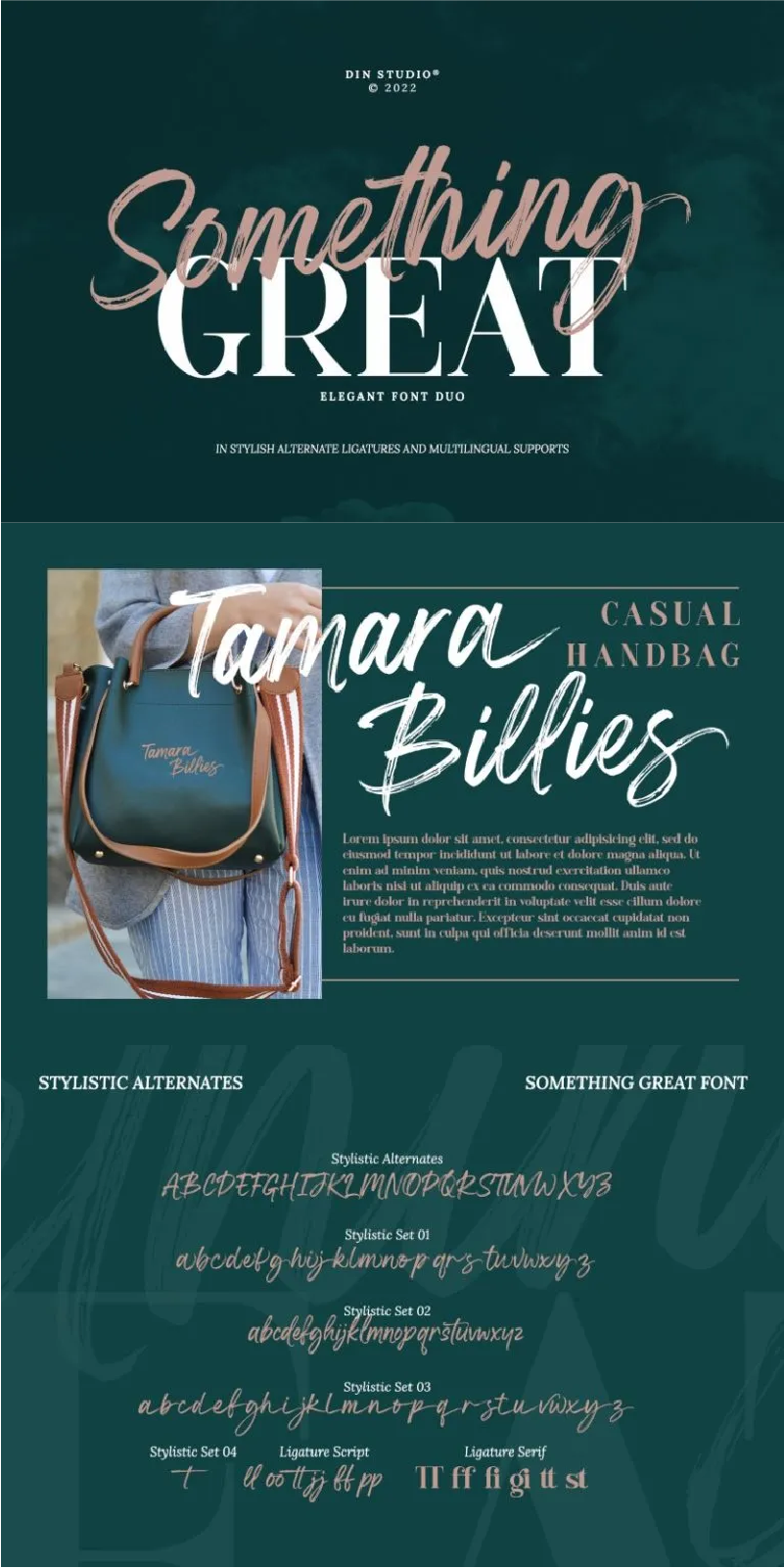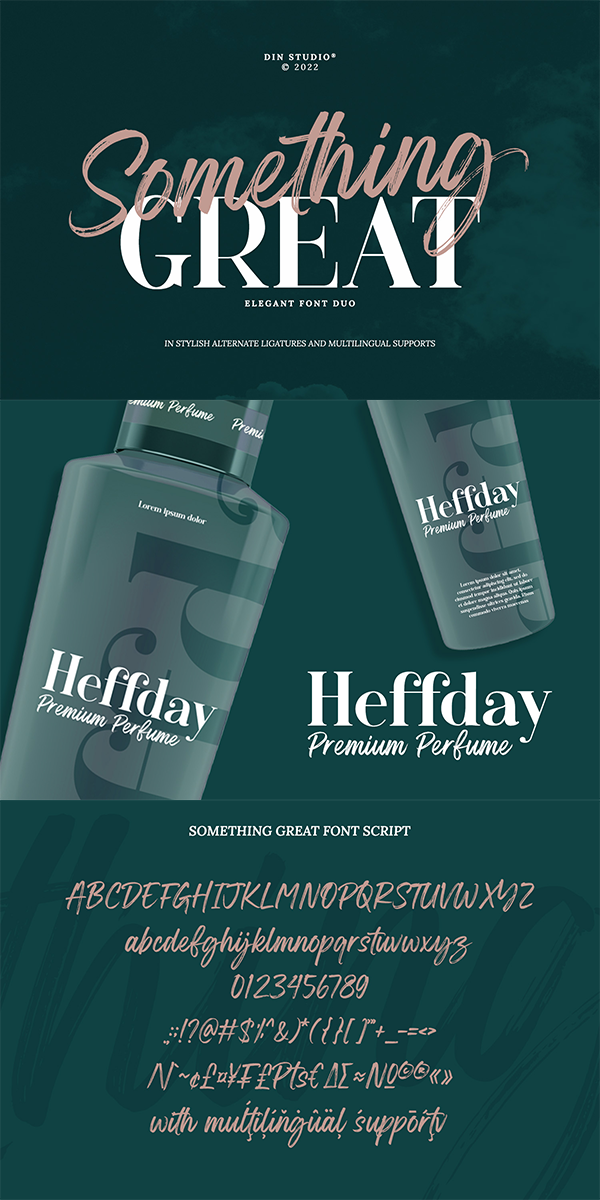
Something Great Font
About Something Great
Get them the beautiful Something Great., a beautiful font duo. Through the script font, Something Great brings your design to delve deep into the world of elegance, while the serif font creates modern look. This font duo can be combined as a splendid set, or worn separately, with each possessing a head-turning magnificence of its own. It is perfectly used for your presentation, designs, branding, quotes, invitation, website illustrations, etc.